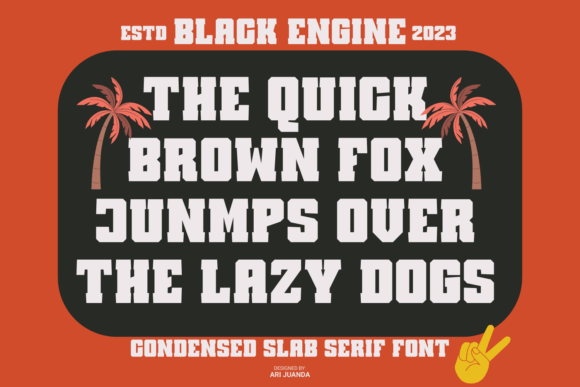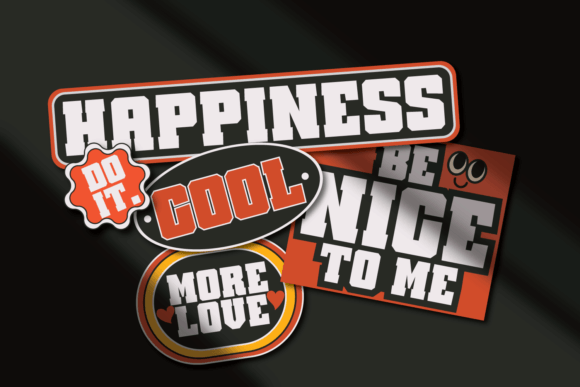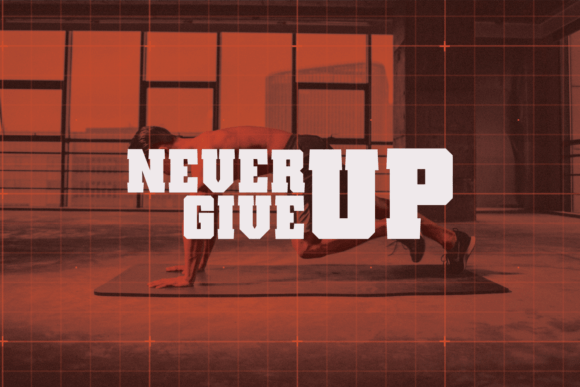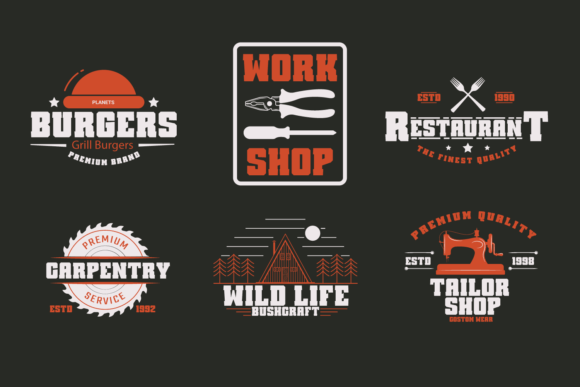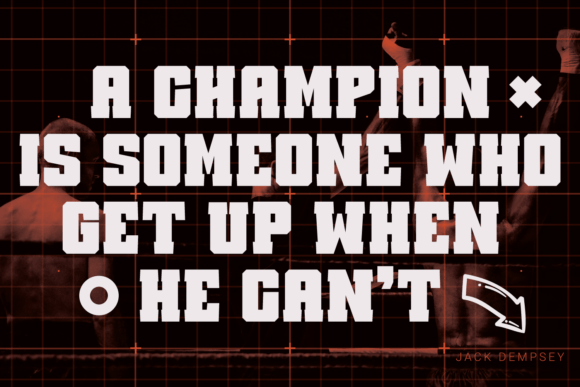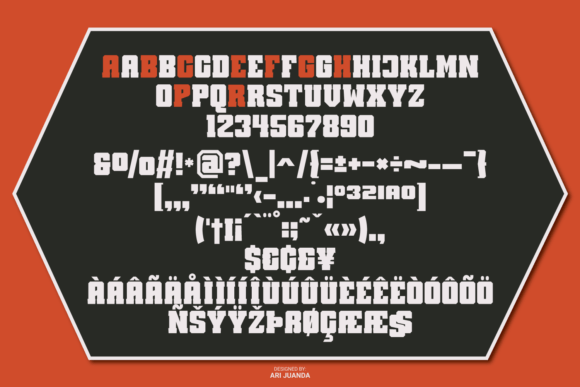
Unleash the Power of Black Engine Font: A Vintage-Inspired Slab Serif for Modern Design
In the realm of typography, fonts play a pivotal role in shaping the visual identity of a brand, product, or creative project. Among the myriad of font styles available, slab serif fonts have gained significant popularity for their robustness and classic appeal. One such font that has been making waves in the design community is the Black Engine font. This article aims to provide an in-depth look at the Black Engine condensed slab serif font, exploring its unique characteristics, potential applications, and the value it offers to designers and crafters.
The Essence of Black Engine Font
The Black Engine font is a vintage-inspired typeface that seamlessly blends classic style with modern minimalism. Built on a solid foundation, this font boasts strong visuals and a hint of vintage motion, making it an excellent choice for a wide range of design projects. Its condensed slab serif design gives it a distinctive look that can add a touch of sophistication and elegance to any creative endeavor.
Key Features of Black Engine Font
- Vintage-Inspired with a Modern Twist: Black Engine combines the charm of vintage typography with the simplicity of modern minimalist design. This blend makes it versatile enough to be used in both traditional and contemporary design contexts.
- Condensed Slab Serif: The font’s condensed slab serif style allows for efficient use of space without compromising on readability. This feature is particularly beneficial for designs where space is limited, such as in logos, posters, and branding materials.
- Strong Visuals and Vintage Motion: The font’s design elements evoke a sense of strength and movement. The vintage motion infused in Black Engine gives it a dynamic feel, making it perfect for projects that require a sense of energy and nostalgia.
- Versatility: Black Engine is not limited to a specific genre of design. Its robust and classic look makes it suitable for various applications, from sports and athletics branding to posters, logos, and more.
Applications of Black Engine Font
The versatility of Black Engine font makes it an ideal choice for numerous design projects. Here are some of the areas where this font truly shines:
- Jersey and Athletics Branding: The sporty and vintage vibe of Black Engine makes it a perfect fit for jersey designs, sports logos, and athletics branding projects.
- Posters and Flyers: The strong visual presence of this font ensures that your posters and flyers stand out, capturing the attention of your audience effectively.
- Branding Projects: For businesses looking to establish a strong brand identity, Black Engine offers a timeless appeal that can enhance brand recognition and credibility.
- Logo Designs: The unique blend of vintage and modern styles in Black Engine can help create memorable and impactful logos that set your brand apart from the competition.
Why Choose Black Engine Font?
In a world where design trends are constantly evolving, having a font that can adapt to various styles and requirements is invaluable. Black Engine font stands out for its:
- Timeless Appeal: Unlike trendy fonts that may quickly become outdated, Black Engine’s classic style ensures it remains relevant across different design landscapes.
- Versatility: Its adaptability to different design contexts makes it a practical choice for designers who work on a wide range of projects.
- Emotional Connection: The vintage motion and classic style of Black Engine can evoke a sense of nostalgia and trust, which is crucial for brands aiming to build a strong emotional connection with their audience.
| Author | Line creative |
The Black Engine condensed slab serif font is a powerful tool for designers and crafters looking to infuse their projects with a touch of vintage charm and modern simplicity. Its strong visuals, combined with a timeless appeal, make it an excellent choice for a variety of design applications. Whether you’re working on jersey designs, posters, branding projects, or logo designs, Black Engine font offers the perfect blend of classic style and contemporary flair to elevate your creative endeavors.
With its unique characteristics and versatile nature, Black Engine is poised to become a staple in the world of typography, offering endless possibilities for creative expression and design innovation.